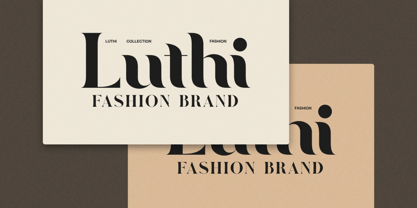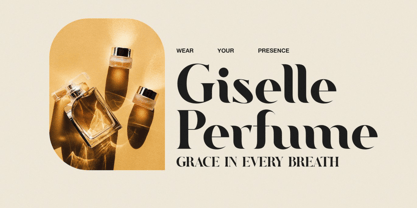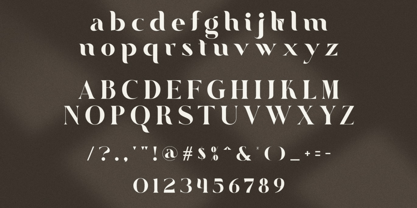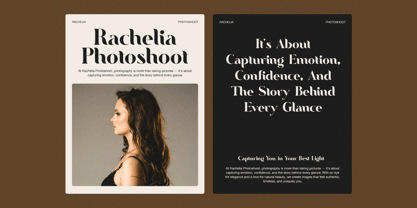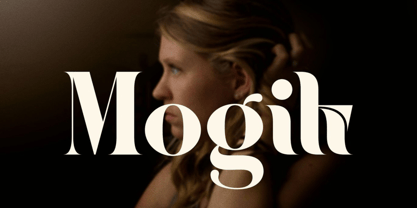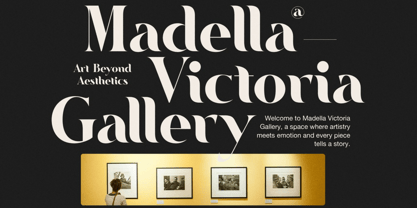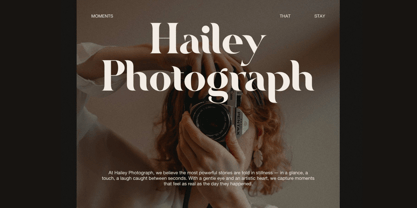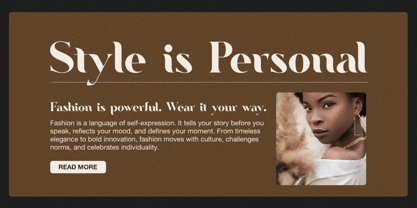
Mezem
Mezem is a clean and elegant serif font crafted to bring timeless sophistication to your creative projects. Combining classic serif charm with simple, refined shapes, Mezem delivers clarity, balance, and style—making it perfect for branding, editorial layouts, invitations, product packaging, and more.
Its smooth curves and well-proportioned letterforms offer excellent readability while maintaining a polished and professional appearance. Whether you're designing bold headlines or graceful body text, Mezem ensures that your message is both beautiful and legible across print and digital formats.
✿ Key Features:
• Elegant Serif Design: Classic style fused with modern simplicity for versatile elegance.
• Multiple Font Weights: From bold titles to subtle supporting text, balance your design effortlessly.
• High Readability: Crisp and clean shapes optimized for print and screen clarity.
• Font Pairing Friendly: Pairs beautifully with sans serif fonts for flexible design combinations.
• Soft Curves & Fine Details: Delivers a stylish look without feeling overly traditional.
• Multilingual Support: Includes accented characters for international use.
✿ Perfect For:
• Logo & Brand Identity Design: Build lasting brand visuals with a timeless, classy serif.
• Editorial & Publishing Projects: Ideal for magazines, books, and blogs with elegant layouts.
• Wedding Invitations & Stationery: Adds warmth and style to formal event materials.
• Product Packaging: Elevates labels and boxes with a clean, high-end feel.
• Web Design & Digital Use: Maintains clarity and elegance across various screen sizes.
Bring clarity, elegance, and a modern classic look to your next project with Mezem—a versatile serif font that’s as stylish as it is functional.